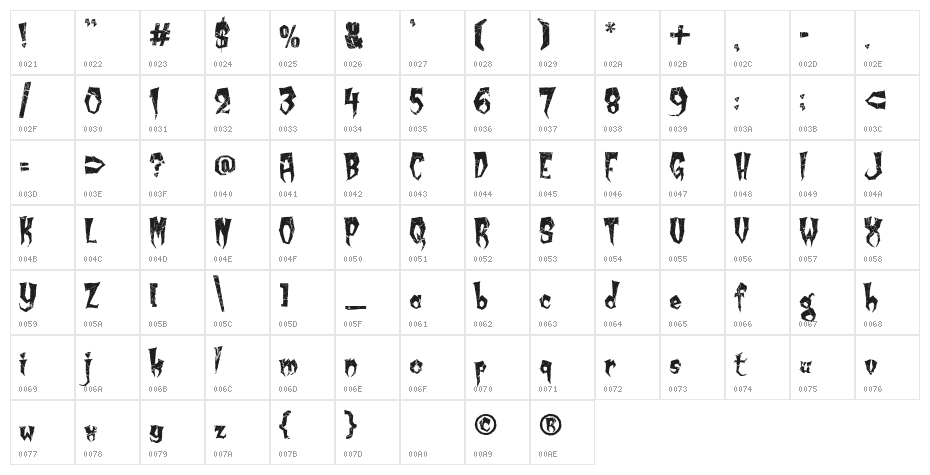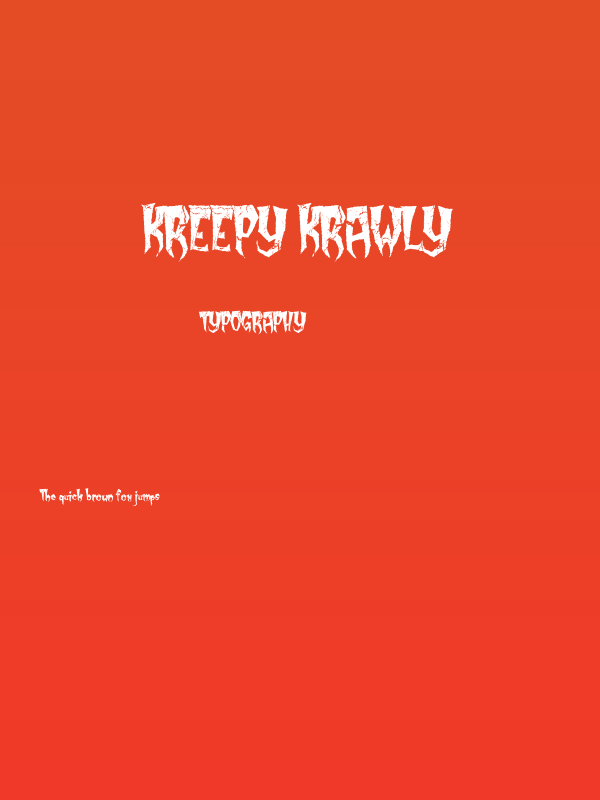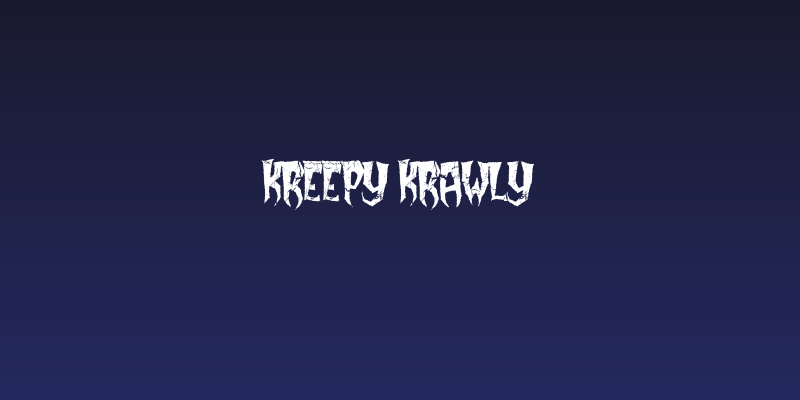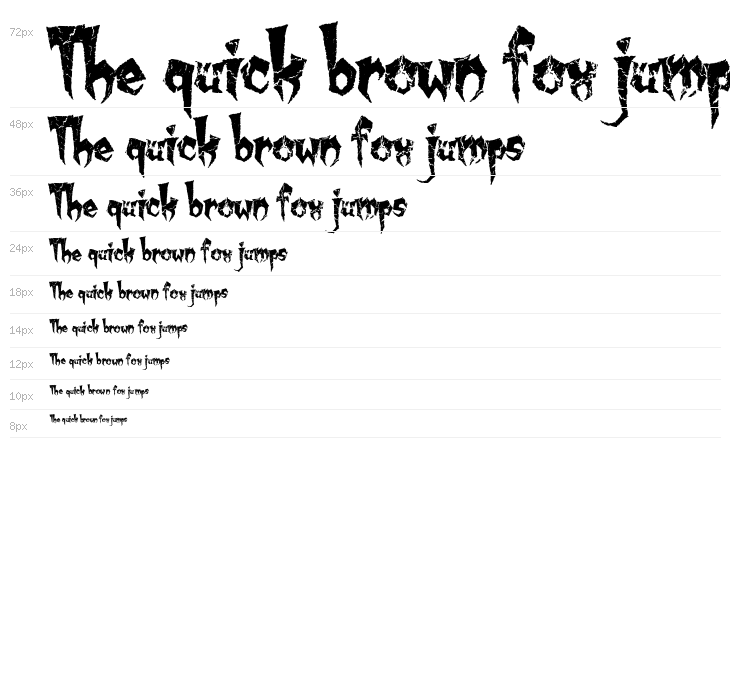
Kreepy Krawly Font
Kreepy Krawly Description
This font features a highly distressed and jagged appearance, reminiscent of torn paper or rough textures. The characters are irregular and edgy, creating a sense of chaos and unpredictability. Each letter is uniquely shaped, with sharp angles and uneven edges, giving it a raw and gritty aesthetic. The uppercase and lowercase letters maintain this distressed style, while the numbers and special characters follow suit, adding to the overall rugged look. This font is perfect for projects that require a bold and unconventional style, such as horror-themed designs or edgy branding.
| Proposed Projects | Ideal for horror-themed designs, edgy branding, album covers, and poster art. |